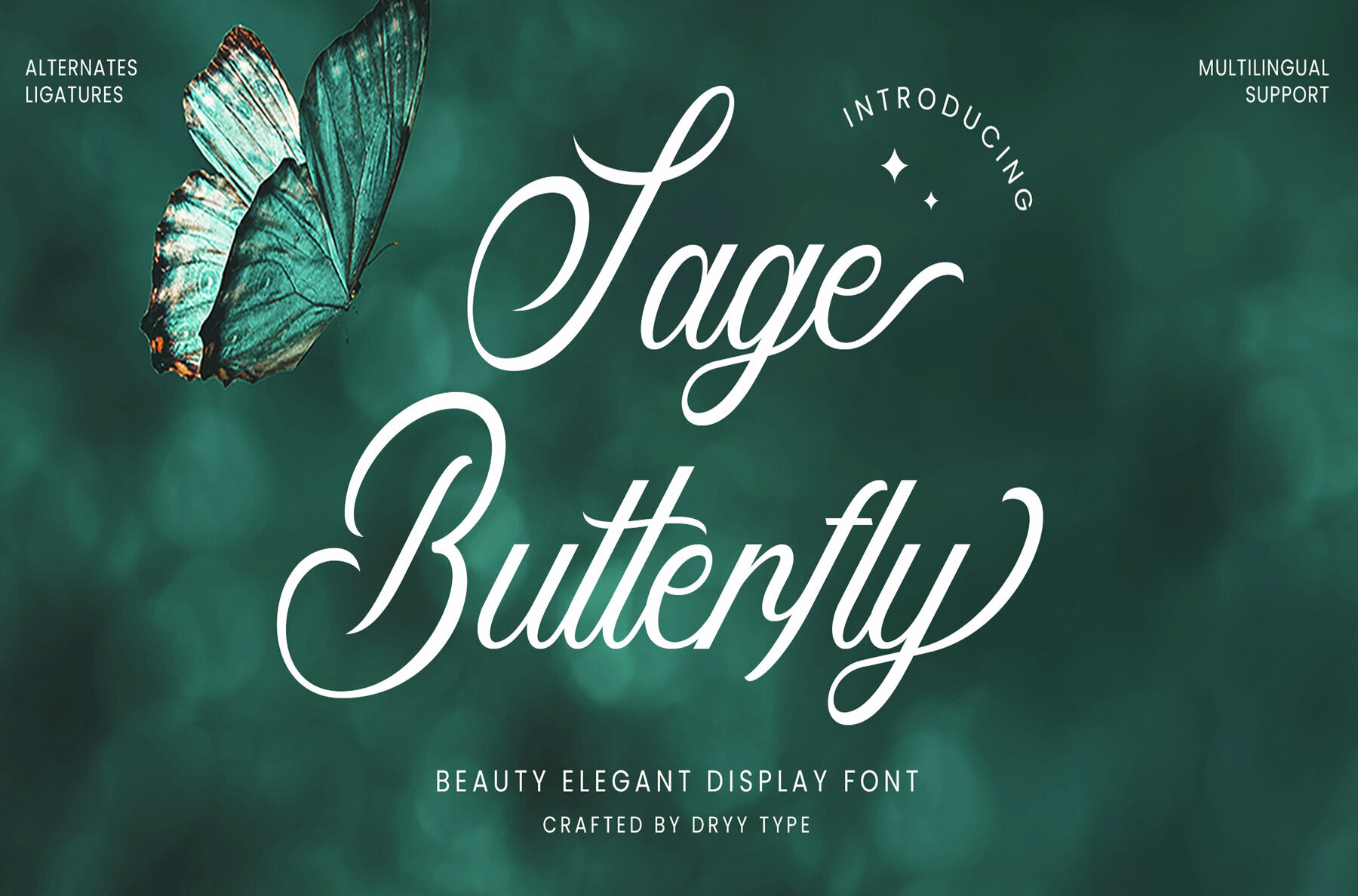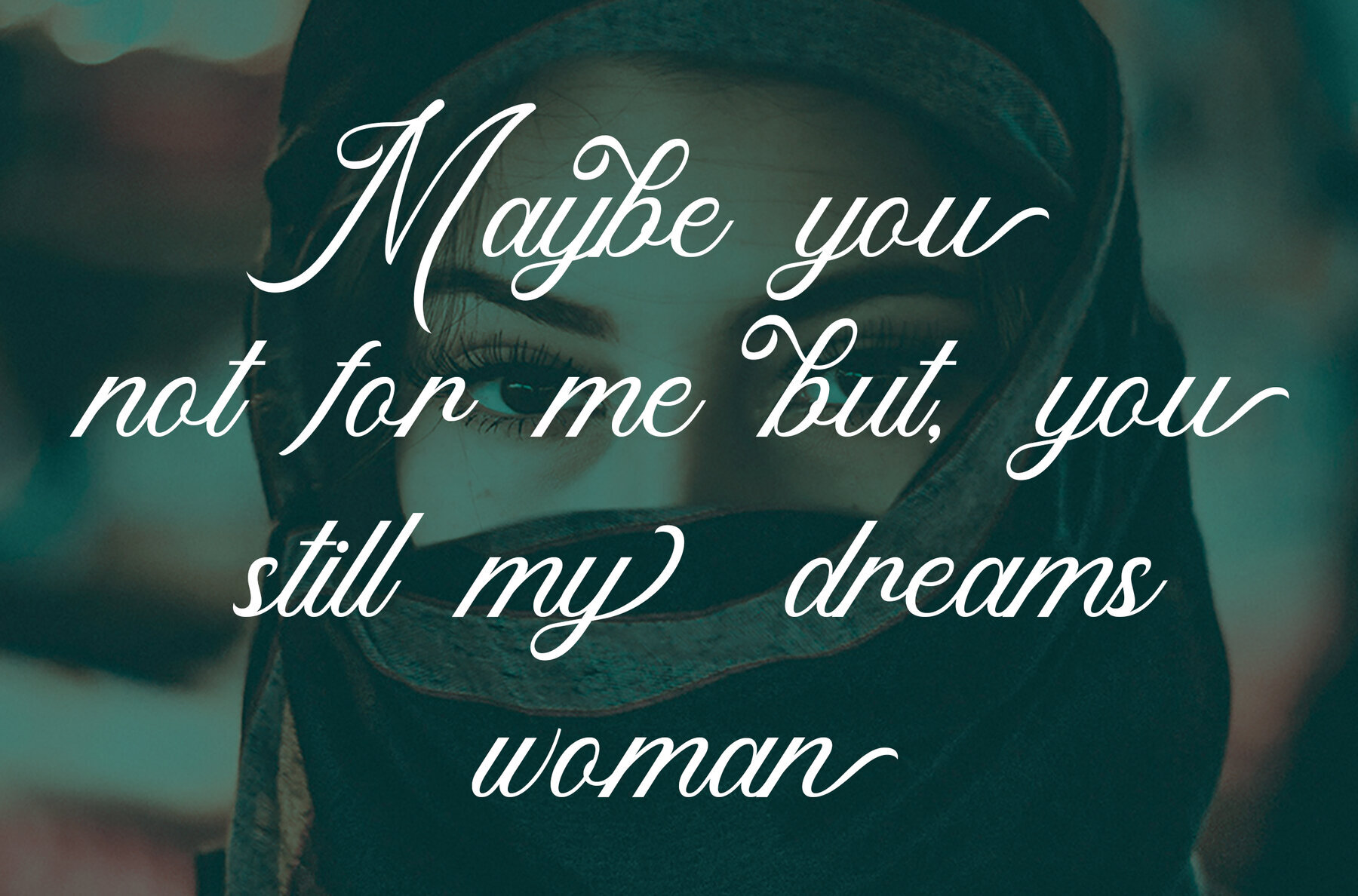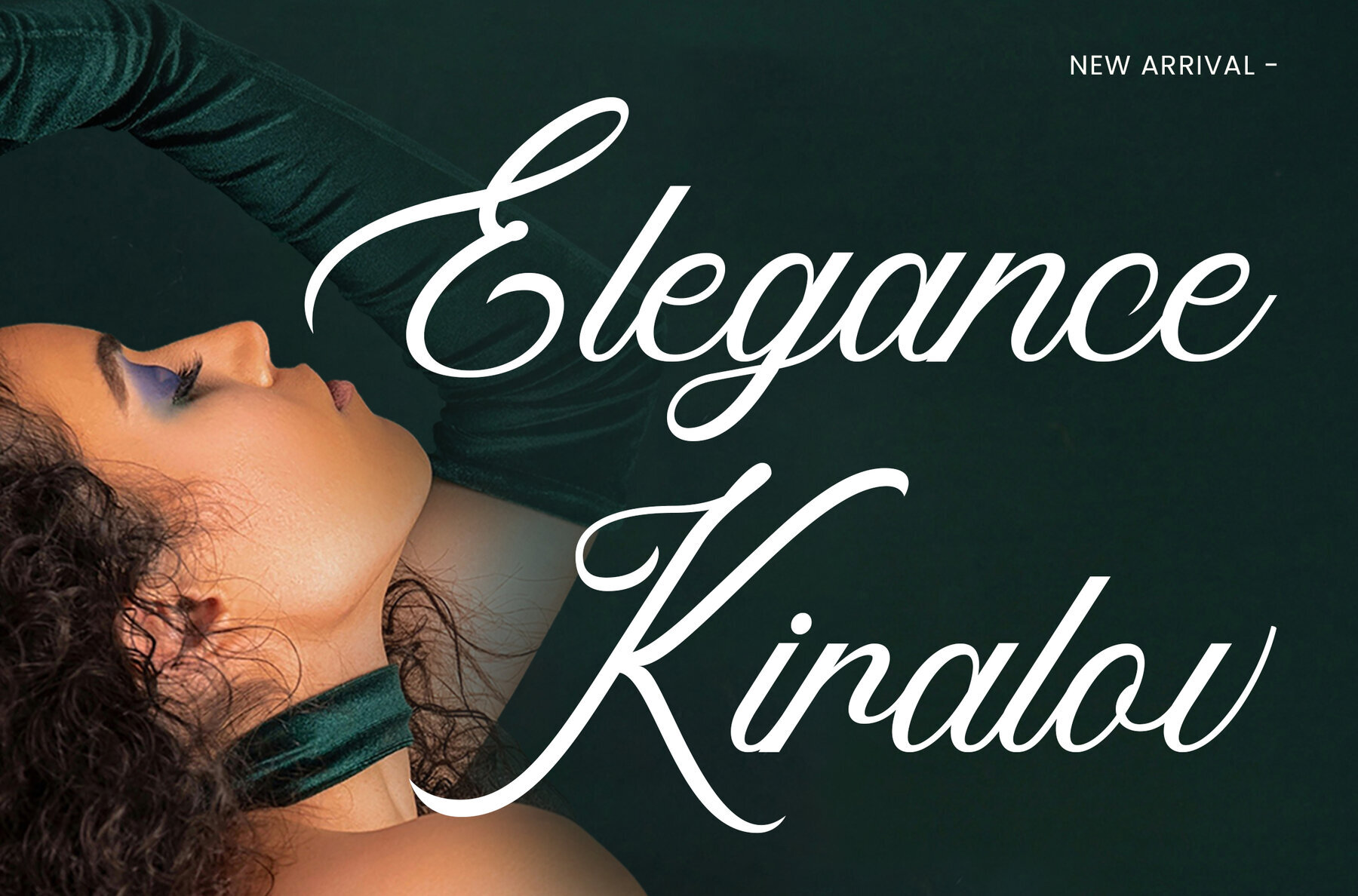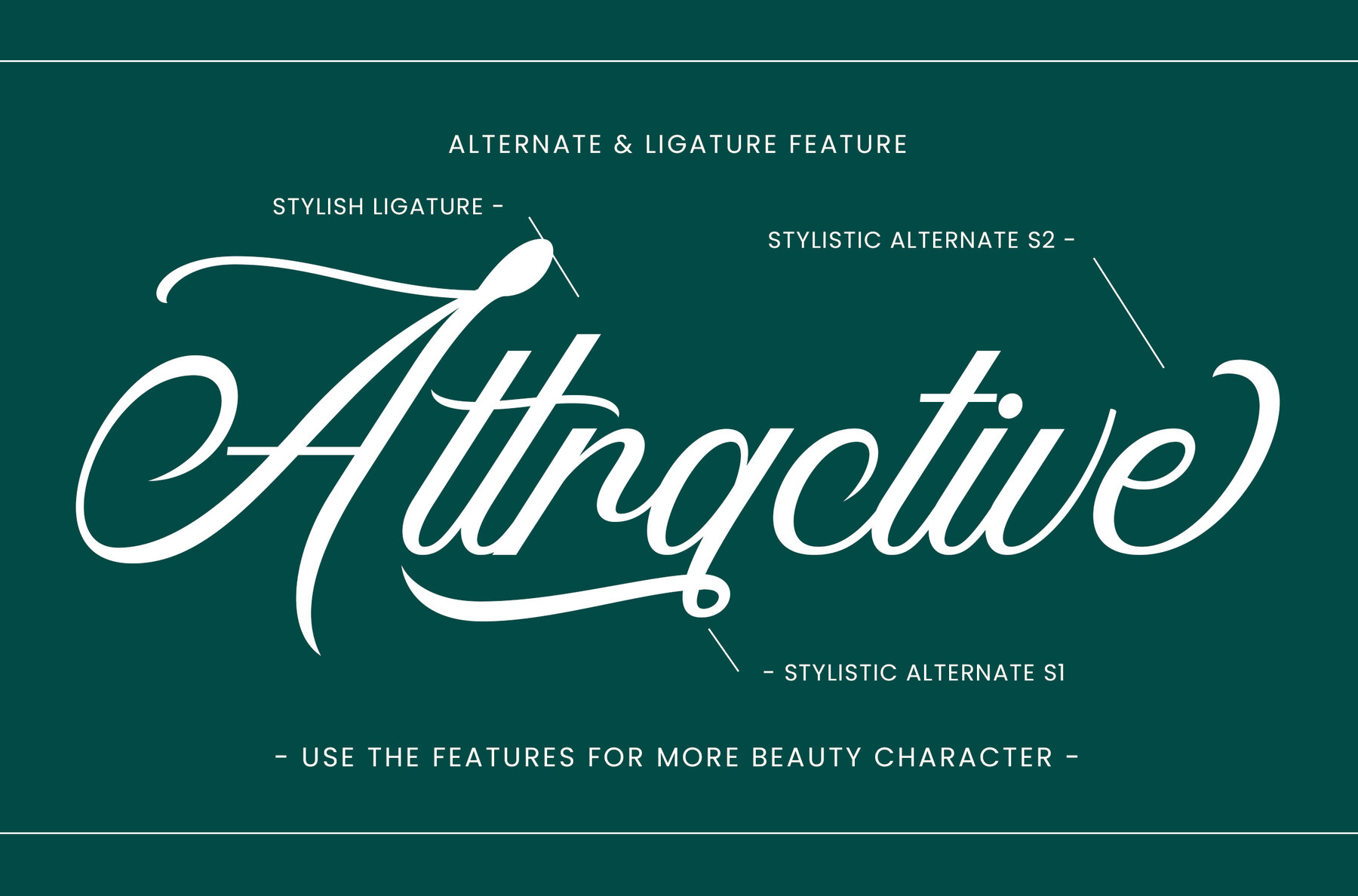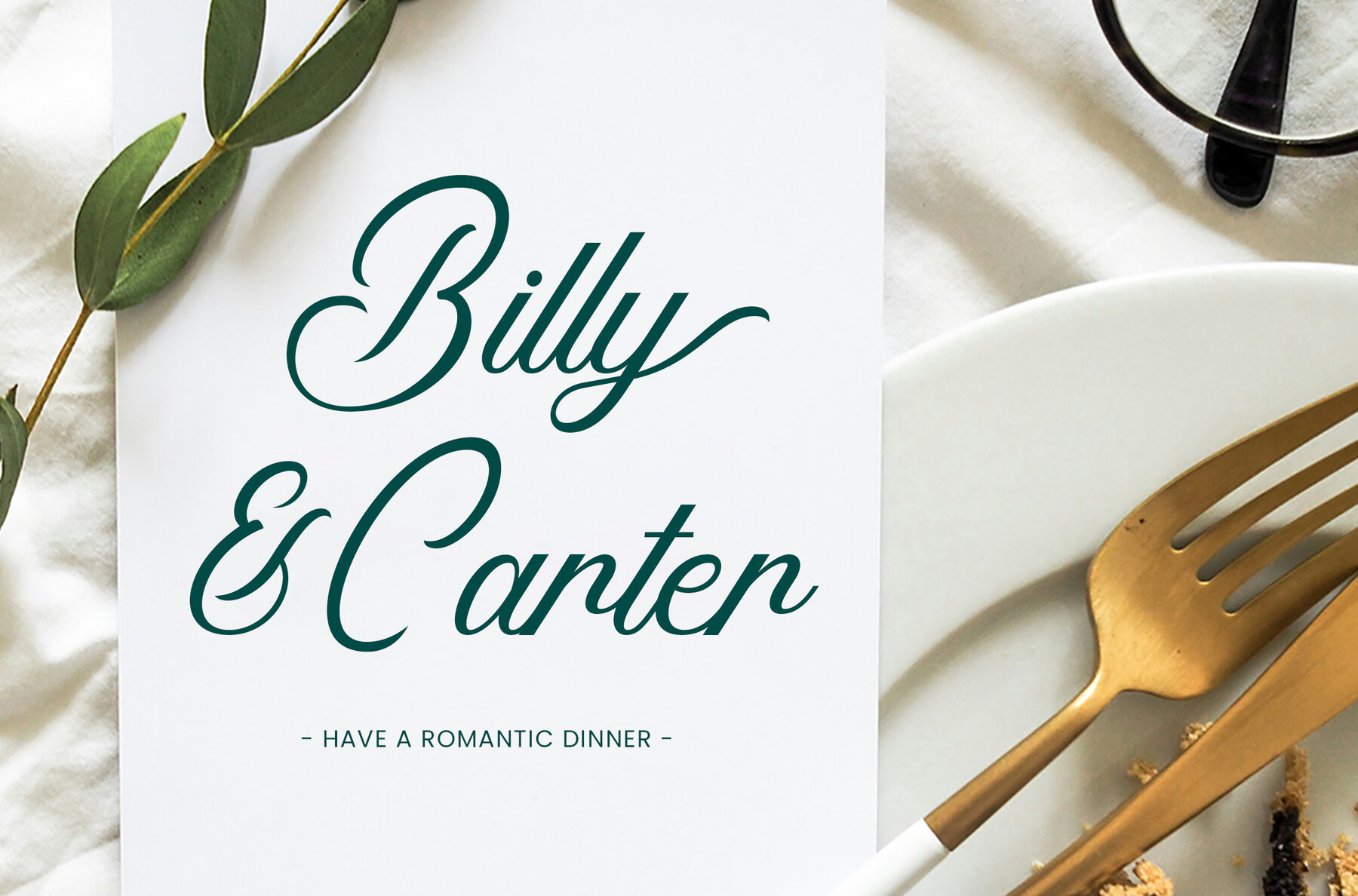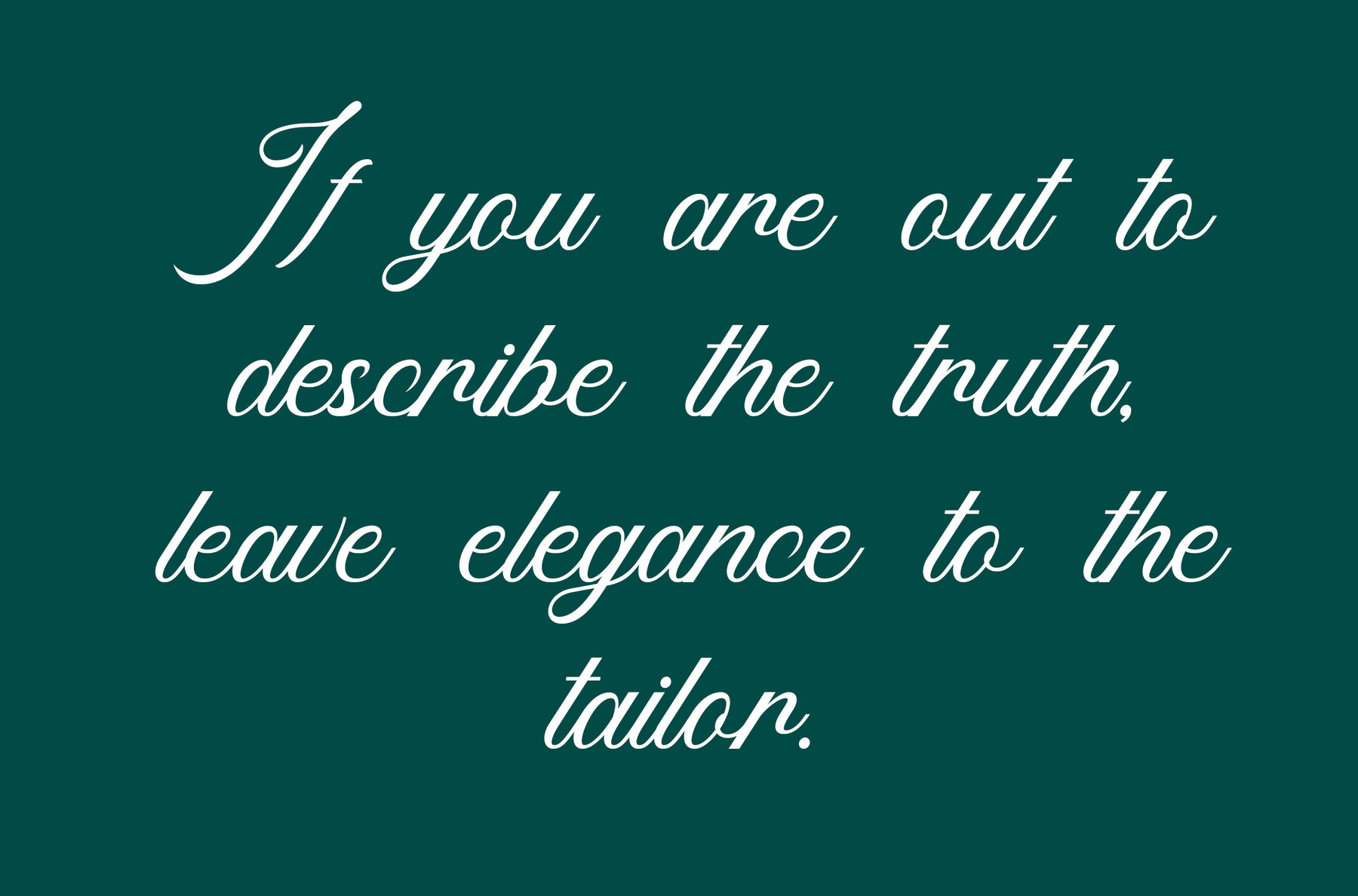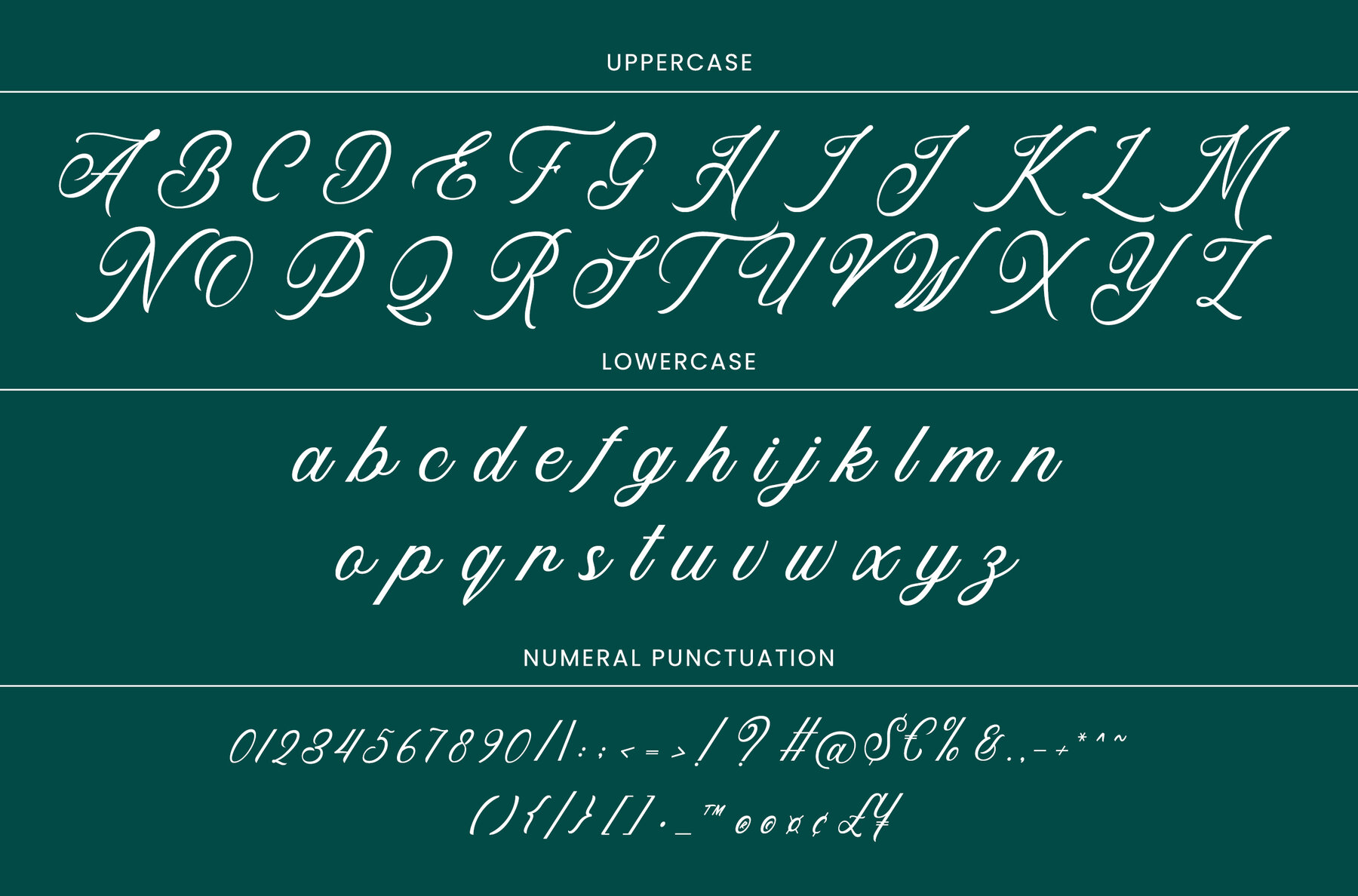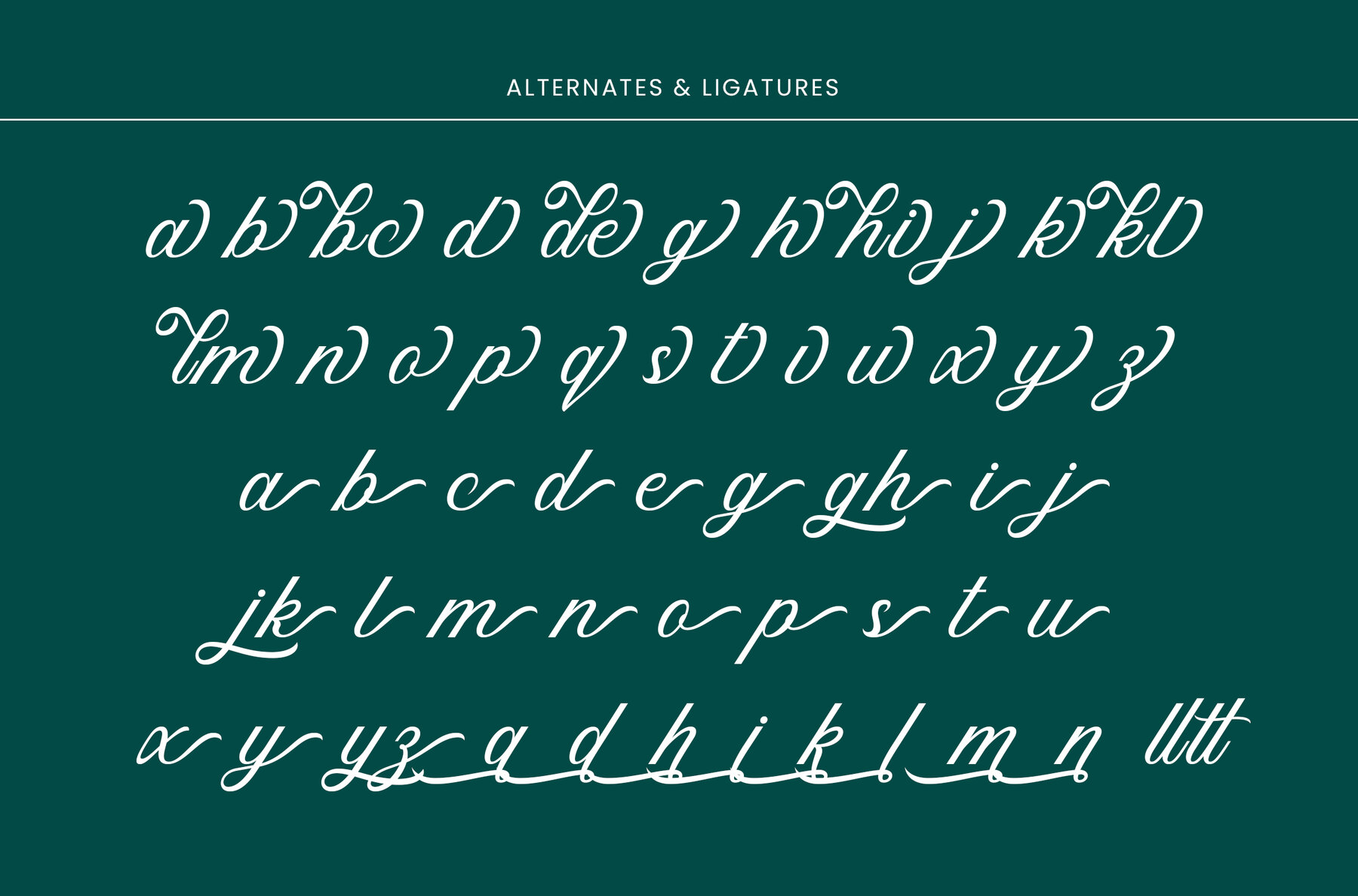
Sage Butterfly Font
Sage Butterfly
Sage Butterfly is a sophisticated script font perfect for adding an elegant touch to your design projects. Its versatility makes it suitable for a wide range of design applications, from branding to social media graphics. Featuring a full set of uppercase and lowercase letters, Sage Butterfly also includes alternates, ligatures, and numerals, ensuring you have all the tools needed for creative expression.
In addition to the standard character set, this font offers multilingual support, making it an excellent choice for global designs. Whether you're working on logos, invitations, or any other creative endeavor, Sage Butterfly brings a graceful and refined aesthetic that will captivate your audience.